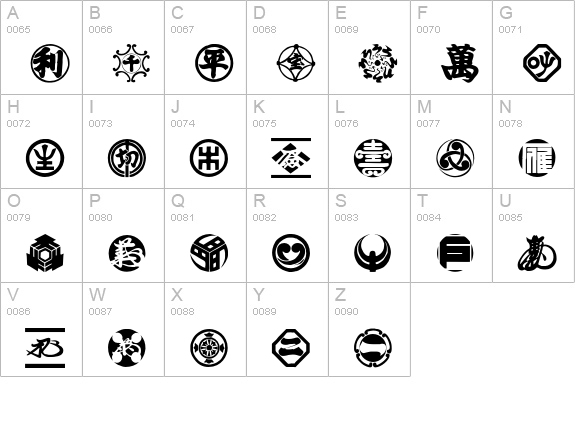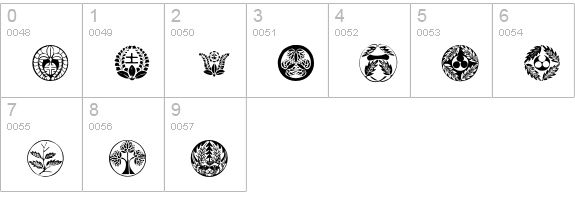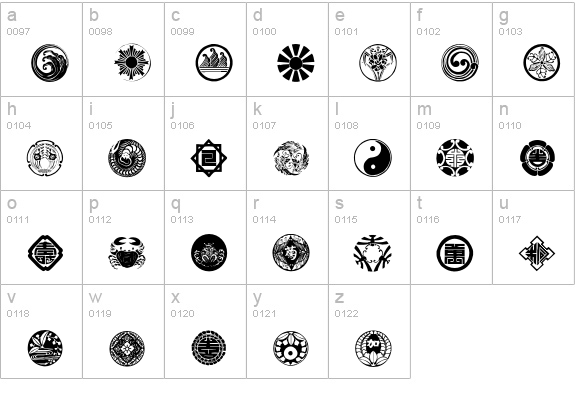
Kurusu Font Details
Kurusu font is a modern and elegant typeface that exudes sophistication and style. With its sleek lines and unique letterforms, Kurusu is perfect for adding a touch of class to any design project. Whether you're creating invitations, logos, or social media graphics, this font will help you stand out from the crowd. Best of all, Kurusu font is completely free to download at FontsMarket.com. This means you can access this beautiful typeface without any cost, making it a valuable addition to your font collection. Don't miss out on the opportunity to elevate your designs with the stunning Kurusu font - download it today and start creating something truly special.